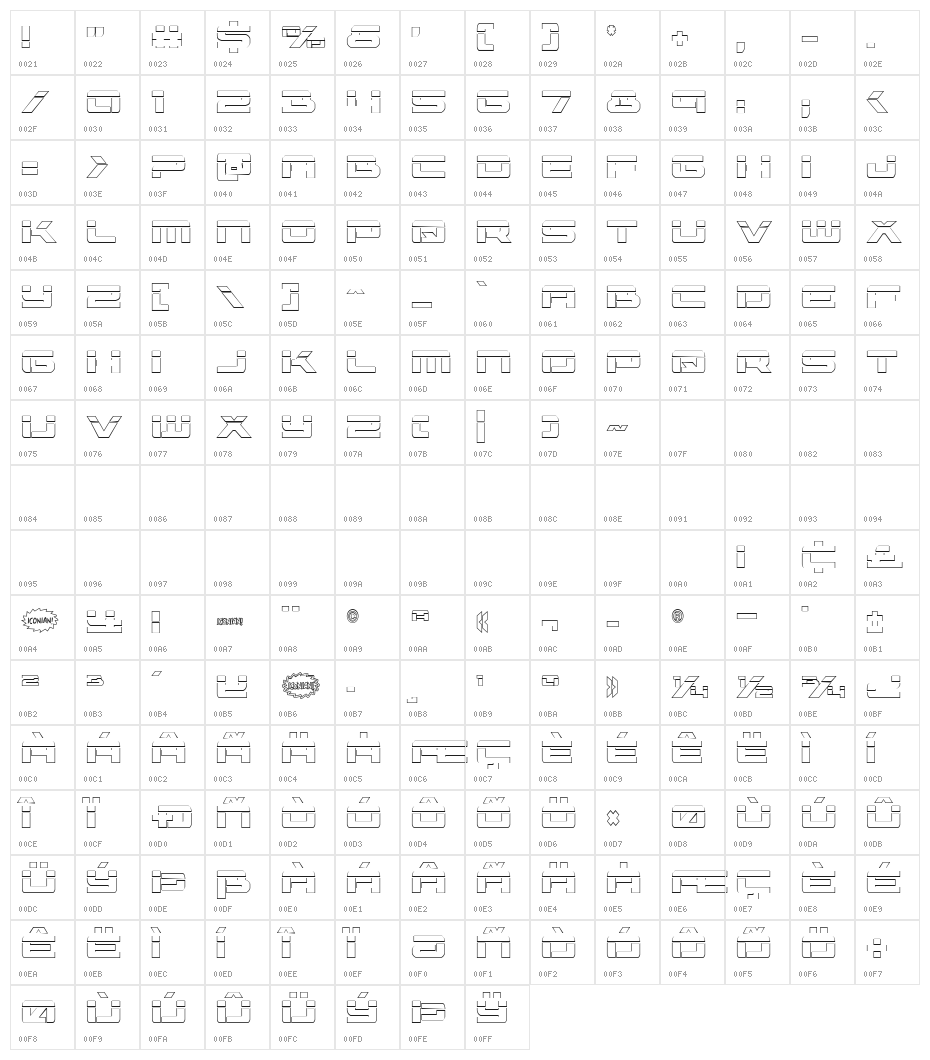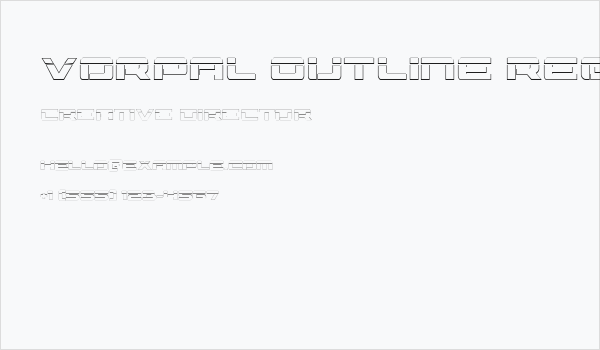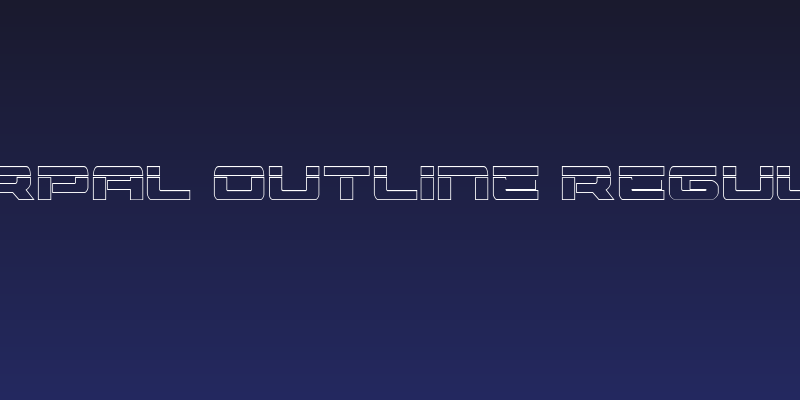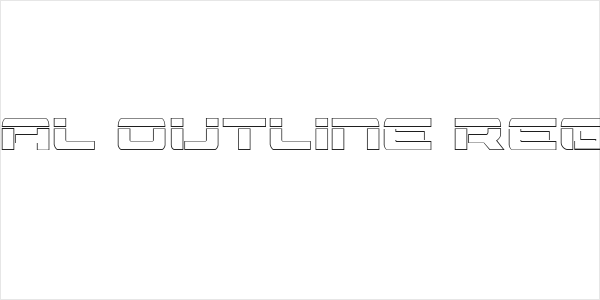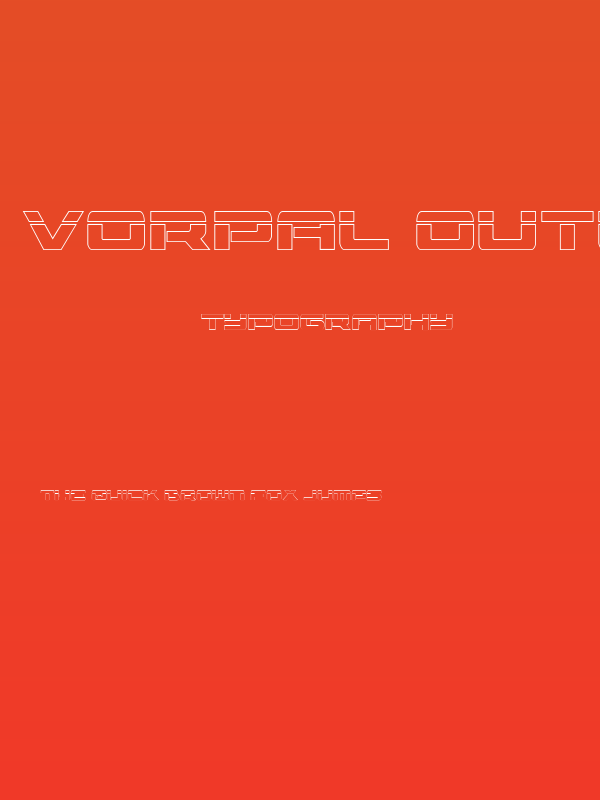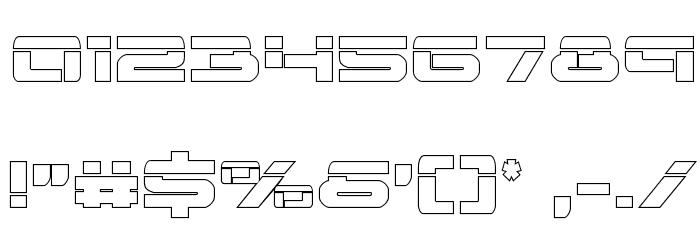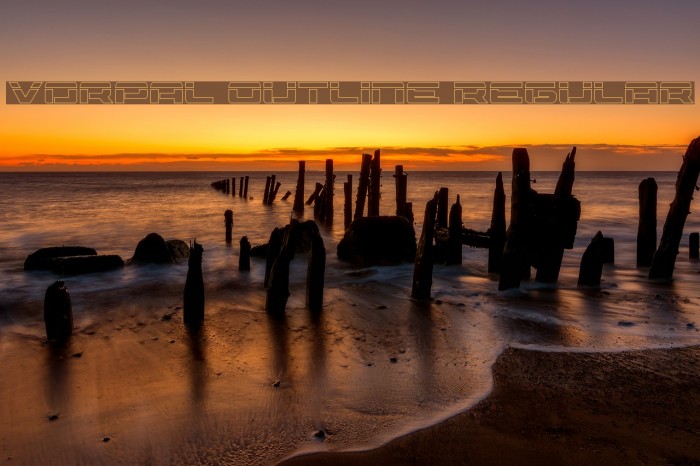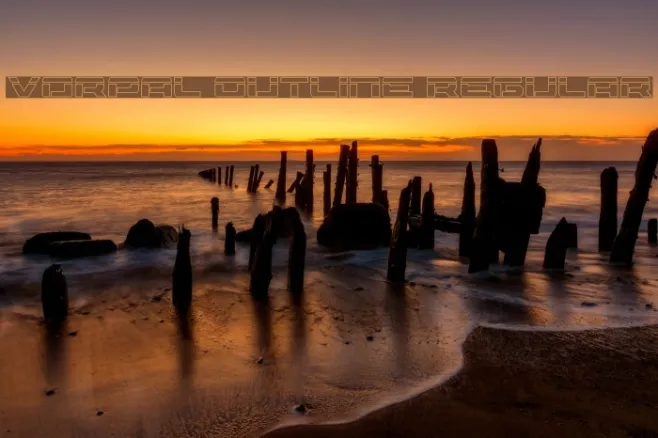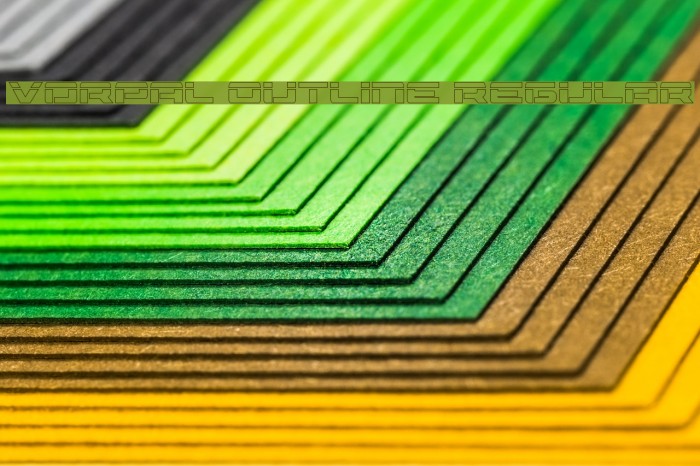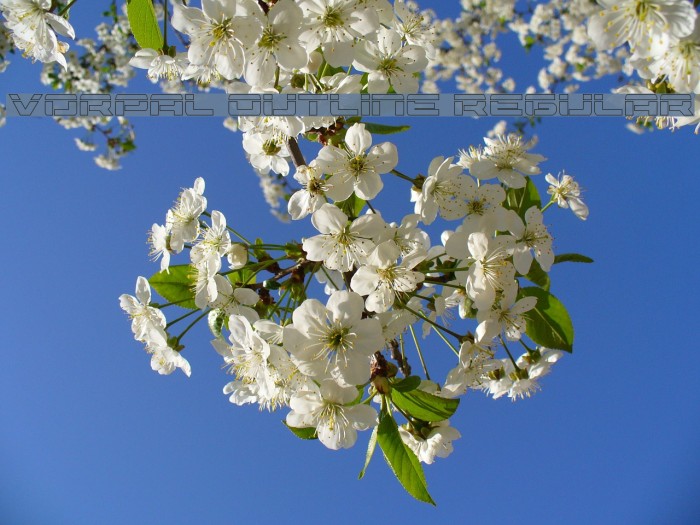
Vorpal Outline Regular Font
Vorpal Outline Regular Description
This font features a distinct outline style with a futuristic and geometric appearance. The characters are constructed with clean, angular lines that form a hollow interior, giving it a modern and digital feel. The uppercase and lowercase letters maintain a consistent design, emphasizing uniformity and precision. The numerals and special characters follow the same structural pattern, ensuring a cohesive look across all glyphs. This font's unique outline design makes it stand out, ideal for projects that require a bold and eye-catching typeface.
| Proposed Projects | Ideal for technology branding, sci-fi themed designs, video game titles, and digital art projects. |